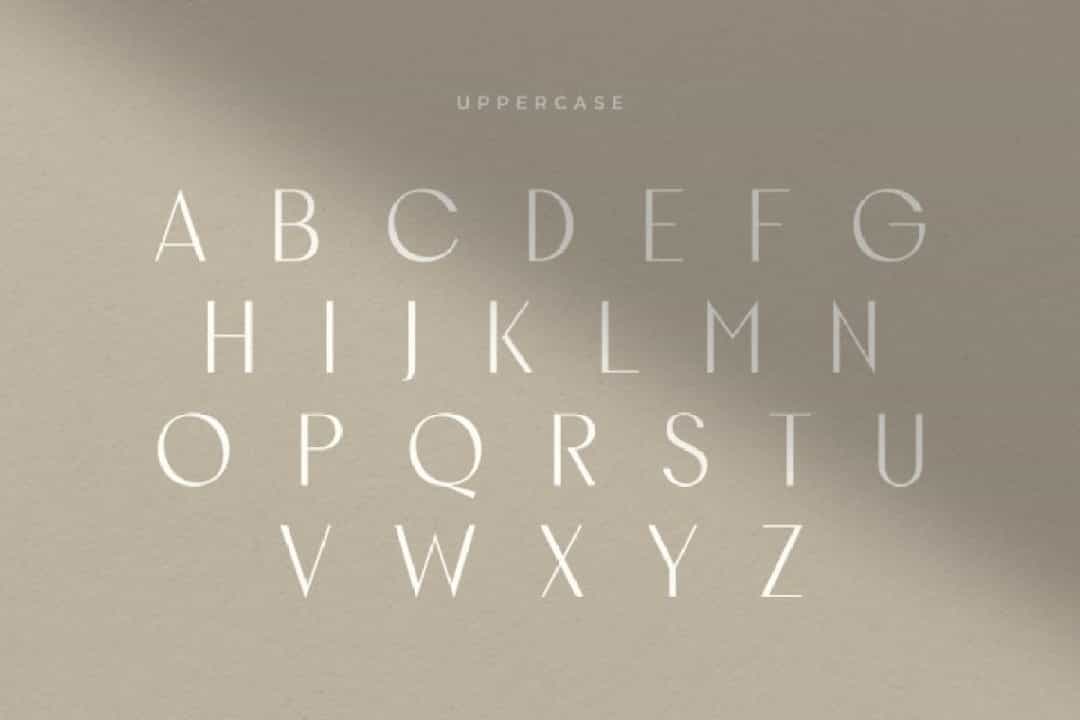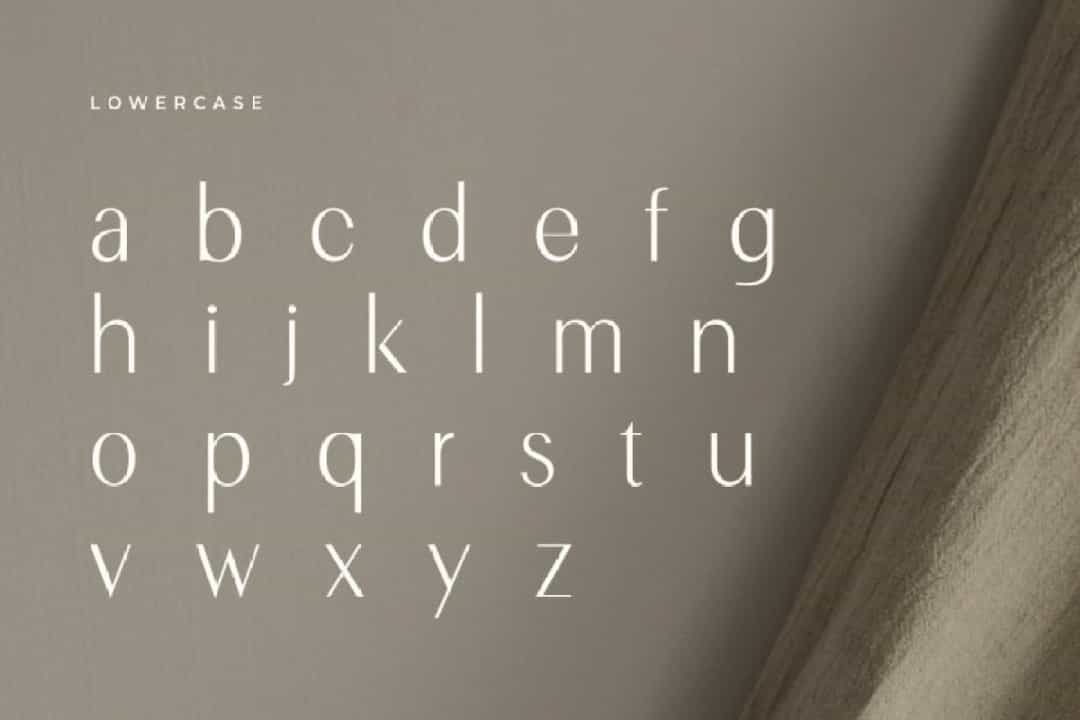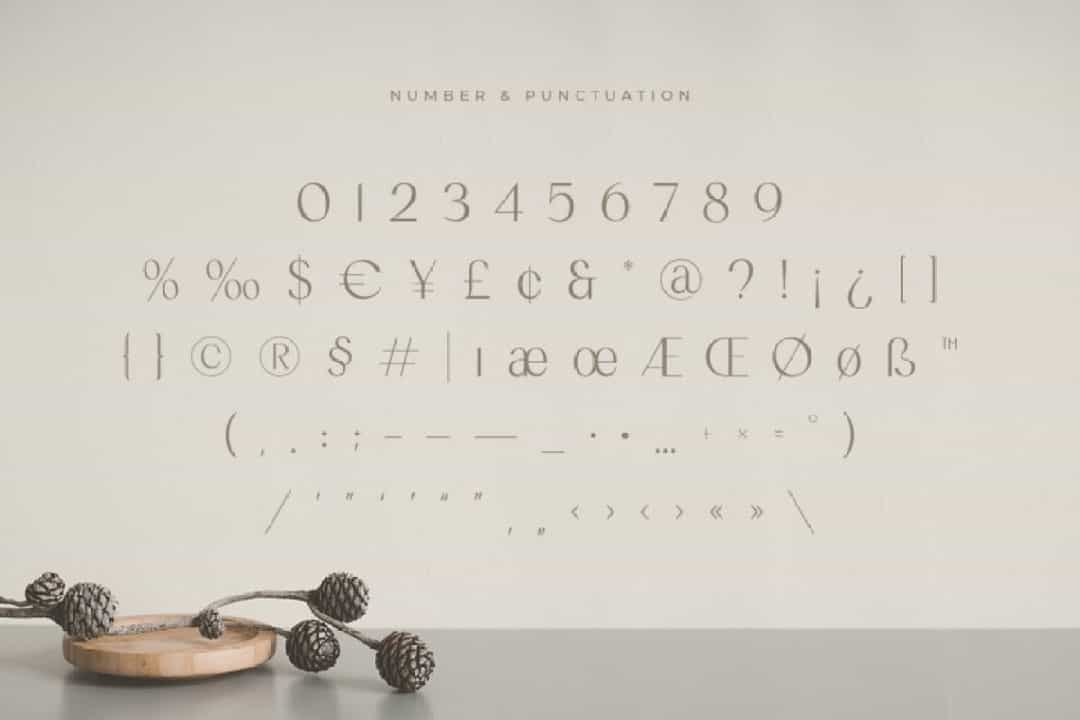
Discover Romantic Font, part of the Sans Serif collection—a versatile and unique font perfect for adding a personal touch to your projects. Download it for free and enjoy crafting designs with style, from invitations to social media posts. This font is available exclusively for personal use, giving you the freedom to create without limits. Unlock your creativity with Romantic Font today!
Romantic Font is a sleek and contemporary sans serif font with a design that enhances the appeal of your brand. It’s perfect, for designers or product owners seeking solutions to elevate the sophistication and style of their designs. Specifically tailored for Romantic Font we’ve crafted each character with a touch of elegance to assist you in achieving a look, for your design.